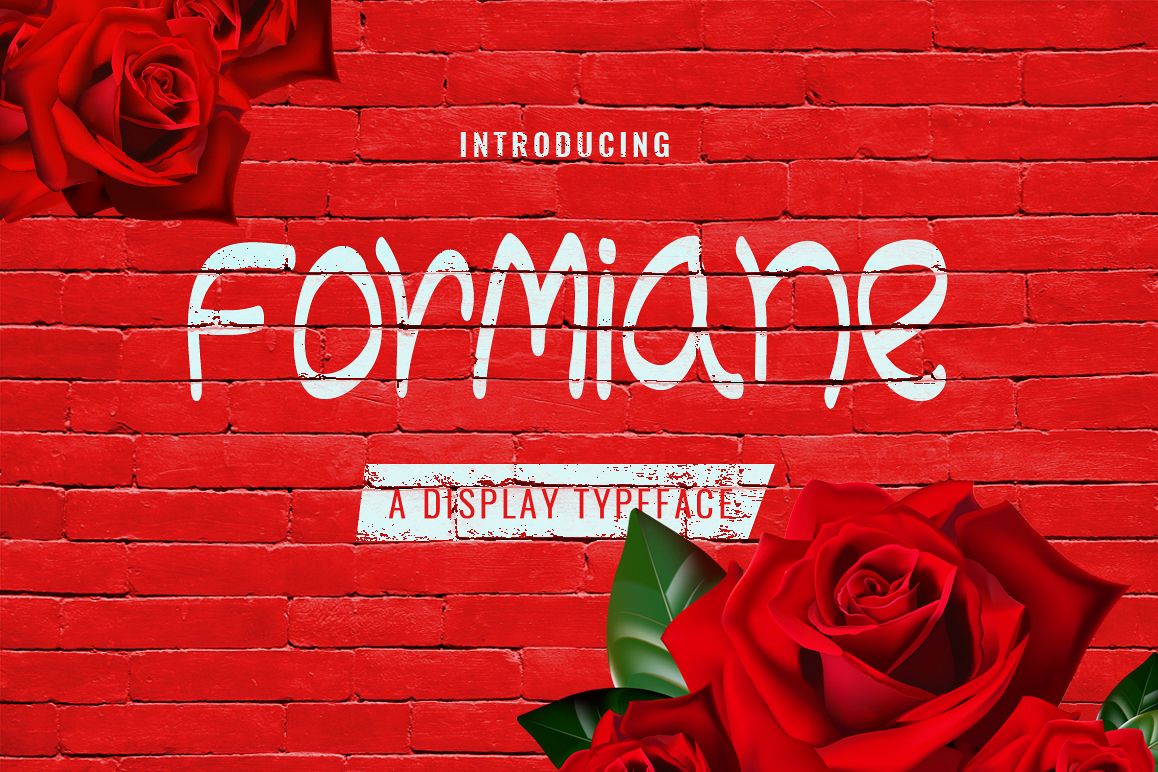
Formiane Typeface
Introducing Formiane!
Formiane
is a modern handmade display font.
Formiane
is perfectly suited to stationery, logos, t-shirt, paper, print design, website header, photo frame, flyer, music cover, poster, image slider and much more.